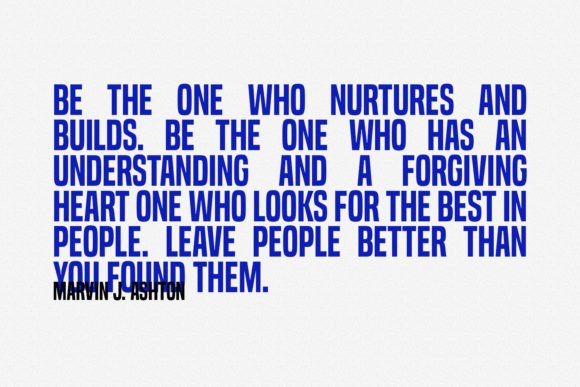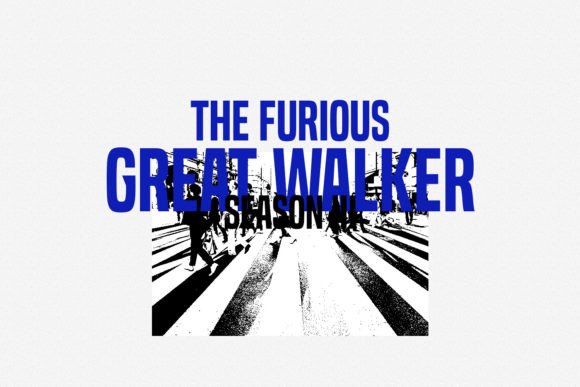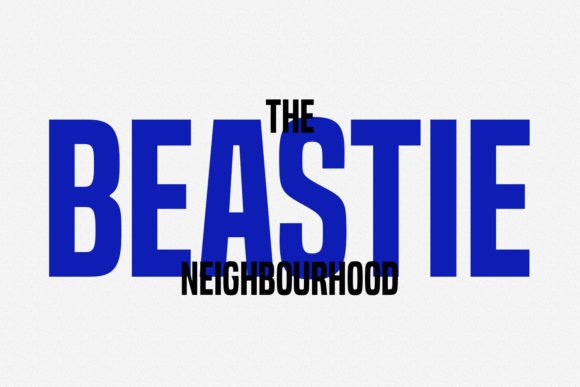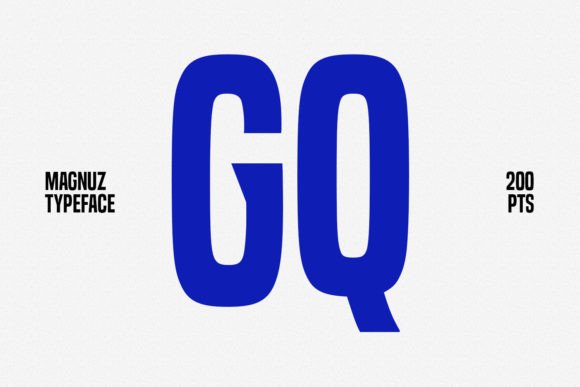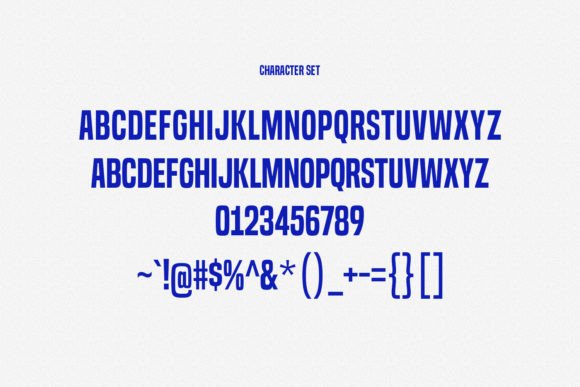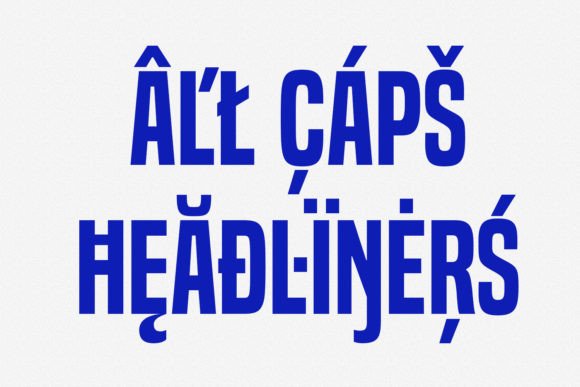
Introduction to Magnuz Font
As a designer, there’s nothing quite like the thrill of discovering a new font that perfectly captures the essence of your creative vision. For me, that moment came when I stumbled upon the Magnuz Font. Its sleek lines and minimalist design immediately caught my attention, and I knew I had to learn more.
The Magnuz Font is a high-quality sans display font that’s designed to be versatile and easy to read. With its clean lines and balanced proportions, it’s the perfect design resource for anyone looking to add a touch of sophistication to their creative project. Whether you’re working on a branding project, creating a stunning headline, or simply need a font with a transparent background, Magnuz Font is a valuable asset for any designer.
What sets the Magnuz Font apart is its unique blend of simplicity and elegance. With a free download available, it’s never been easier to incorporate this design gem into your next project. So, if you’re looking for a font that will elevate your design to the next level, look no further than the Magnuz Font.
Key Features of Magnuz Font
- High-quality, professional design suitable for various creative projects.
- Features a transparent background, allowing for seamless integration with any design element or image.
- Designed to be highly versatile, suitable for use in logos, branding materials, and other visual identity elements.
- Unique characteristics include its modern and sleek aesthetic, making it an ideal choice for innovative and forward-thinking projects.
Honest Review: Magnuz Font
I recently had the chance to work with the Magnuz Font, and I’m excited to share my honest thoughts on this design resource. As a designer, I appreciate high-quality fonts that can elevate my creative projects.
Here are some things that work well with the Magnuz Font:
- ✨ Clean and modern design aesthetic that makes it perfect for modern design projects
- ✨ Transparent background, which allows for seamless integration into various design backgrounds
- ⚠️ Limited character set, which might be a concern for designers working on projects that require a wide range of characters
- ⚠️ Not as versatile as some other fonts in terms of styling options
Overall, the Magnuz Font is a solid addition to any designer’s toolkit. While it may have some limitations, its clean design and transparent background make it an excellent choice for modern creative projects. I’d definitely recommend giving it a try!
Tips for Getting the Most Out of Magnuz Font
For optimal results, use the Magnuz Font in conjunction with other high-quality design elements.
Experiment with different font sizes and colors to find the perfect combination for your creative project.
The Magnuz Font is ideal for:
Designing logos and branding materials
Creating social media graphics and ads
Developing presentations and documents
Enhancing digital products and websites
Alternatives to Magnuz Font
Can I use the Magnuz Font with a transparent background?
Yes, the Magnuz Font has a transparent background, making it ideal for use with images or backgrounds that have a lot of texture or color. This allows designers to create visually appealing and creative projects with ease.